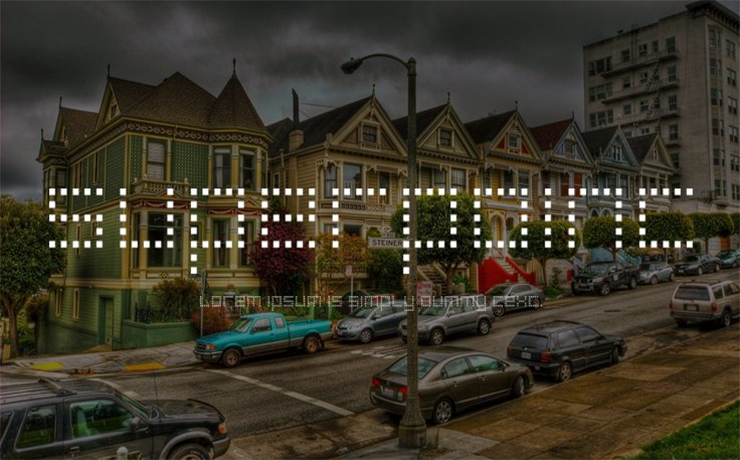
Superpoint Font is an amazing pixel typeface that has a unique dotted style design. It can be used perfectly for various websites and mobile applications.
This bitmap pixel style font was designed by Sven Stüber and he releases it for the first time on 7th October 2001.
The entire font family is designed with a cube-shaped dot as you can see in the letter map images. In addition, the designer has made a name for himself as a superpoint because the whole family has a dot point.
There are very few font families available in the market that feature uniqueness. And this amazing font is one of them because of its unique look.
I assure you, you will definitely see it before using it anywhere or by any designer. There is a great attraction that anyone wants to work with.
Anyone can use it anywhere they need. You can also use it for different purposes. For example, in making a logo, special brochures, game developing, printing fabrics, game titling, kids bags, geometry boxes, and many other similar things.
This fine quality typeface has come with two unique styles including Superpoint R and Superpoint S. Both of these styles have 105 glyphs and 1000 units per em.